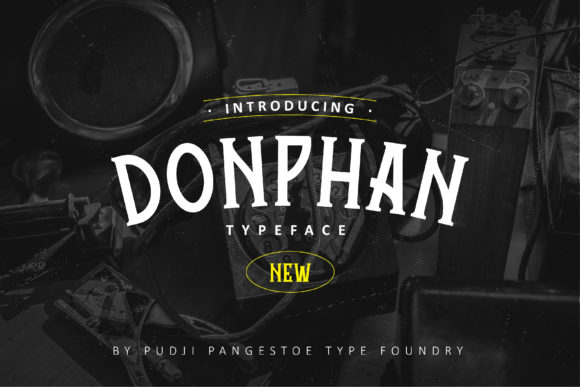
Introducing Donphan Font: A Retro Display Font for Creative Projects
Are you a designer or crafter looking for a unique and stylish font to elevate your creative projects? Look no further than Donphan Font, a retro display font that is hand-produced with a clean form. This versatile font is perfect for a variety of applications, including logos, posters, t-shirts, and any other display idea you can think of.
What Makes Donphan Font Special?
Donphan Font stands out from the crowd with its distinctive retro aesthetic. The font’s clean lines and hand-produced feel give it a charming, nostalgic vibe that’s sure to grab attention. Whether you’re looking to create a bold logo or a stylish poster, Donphan Font is the perfect choice. Its unique character makes it an excellent addition to any design project, and its versatility ensures that it can be used in a wide range of contexts.
Key Features of Donphan Font
- Retro Display Font: Donphan Font boasts a classic, retro look that’s perfect for designers and crafters who want to add a touch of nostalgia to their work.
- Hand-Produced: The font’s hand-produced feel gives it a unique, organic look that’s sure to set it apart from more generic fonts.
- Clean Form: The clean lines and simple shapes of Donphan Font make it easy to read and understand, even at smaller sizes.
- Versatile: Whether you’re creating a logo, poster, t-shirt, or any other type of display material, Donphan Font is the perfect choice.
How to Use Donphan Font in Your Projects
Donphan Font is incredibly easy to use, and its versatility makes it suitable for a wide range of applications. Here are just a few ideas to get you started:
- Logos: Create a bold, eye-catching logo for your business or brand with Donphan Font.
- Posters: Use Donphan Font to create striking posters for events, promotions, or advertising campaigns.
- T-Shirts: Add a stylish touch to your t-shirt designs with Donphan Font.
- Social Media Graphics: Use Donphan Font to create engaging social media graphics that are sure to grab attention.
Tips for Getting the Most Out of Donphan Font
To get the most out of Donphan Font, here are a few tips to keep in mind:
- Experiment with Different Sizes: Donphan Font looks great at a variety of sizes, so don’t be afraid to experiment and find the perfect size for your project.
- Play with Color: The clean lines and simple shapes of Donphan Font make it easy to use with a wide range of colors, so don’t be afraid to get creative.
- Pair it with Other Fonts: Donphan Font pairs well with a variety of other fonts, so feel free to experiment and find the perfect combination for your project.
Donphan Font is a unique and versatile retro display font that’s perfect for designers and crafters looking to add a touch of nostalgia to their work. With its clean lines, hand-produced feel, and bold character, Donphan Font is sure to grab attention and elevate your creative projects. Whether you’re creating a logo, poster, t-shirt, or any other type of display material, Donphan Font is the perfect choice.
Donphan Font is a fantastic addition to any designer’s or crafter’s toolkit. Its unique retro aesthetic, clean lines, and hand-produced feel make it a versatile and stylish font that’s perfect for a wide range of applications. Whether you’re a seasoned designer or just starting out, Donphan Font is definitely worth checking out.